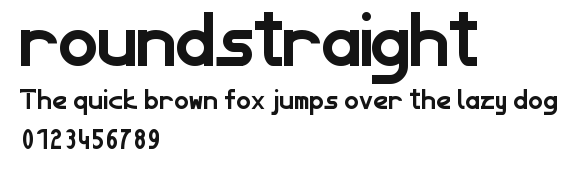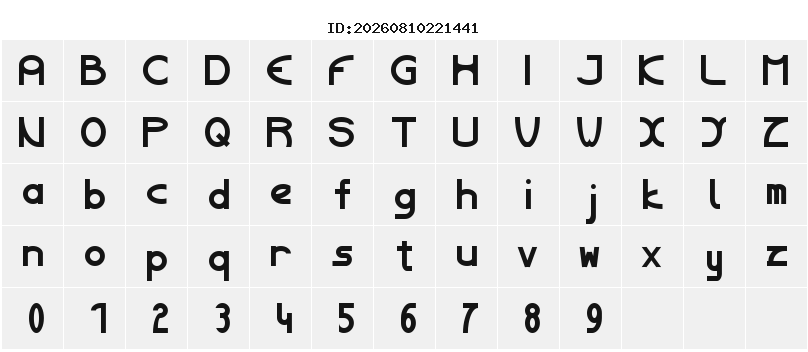
About roundstraight.ttf
roundstraight.ttf is a modern, elegant sans-serif font designed for ultimate readability and visual harmony. Perfect for branding, headlines, web design, and print materials.